Celebrating Women in Typography: Laura Worthington
March is Women’s History Month, so we’re taking the opportunity to celebrate some amazing women working in the type design industry.
This week, we’re talking with Laura Worthington of Bonney Lake, WA, about her journey and insights as a type designer.
MyFonts: Tell us about your journey as a type designer and any challenges you had to overcome.
Laura Worthington: I started out in 2010, it was an interesting time as there wasn’t a lot of information about how to design type online. I got really lucky. I was a graphic designer at the time and had struck up a friendship with a fellow type designer, Charles Borges de Oliviera, who was also a lettering artist. And ironically he and I had the same graphic design clients. He had seen a signature in my email where I hand lettered my name and he asked, “Hey, are you a lettering artist? Are you interested in this? I am too.” And we became friends and he kept pushing me to design type. And I remember him telling me his first type design took 800 hours and I’m thinking to myself, yeah, I don’t have a spare 800 hours to experiment with something like this.
But I was just really interested in it and I decided to take him up on his offer for, you know, a little bit of tutelage. So we met up and I spent about an hour and a half teaching him some things in Dreamweaver about web design and he spent about an hour and a half teaching me FontLab. And that’s about all the instruction that I got. People ask me all the time about how much training did you get? And I say, about an hour and a half at the computer lab at Highland community college at the end of finals week when I was teaching there with Charles Borges de Oliviera, that’s about the extent of it, and reading Learn FontLab Fast, by Leslie Cabarga. Other than that, I’m really self-taught in the realm of type design.
MF: What would be one tip that you would give women who are considering becoming a type designer?
LW: I would encourage them to get into programming and learning the ins and outs of the software and its capabilities. I mean, there are so many interesting things that can be done from the programming end with type. And I think that there’s just a lot to be explored and I would encourage that.
MF: Can you share some insights with us, Laura, on what more can be done to advance diversity in typography?
LW: You know, it’s kind of an interesting question because at first we were talking about women and type, and when I thought about it from there, I felt really fortunate that I got into type at the time that I did. There was a lot of encouragement for women and pushing for women to advance into typography and a lot of opportunities. It was at the time, I remember reading a statistic that only 11% to 13% of all the people in typography were women. And so I got in at a time when there weren’t a lot of women in type. It started changing, and very rapidly and I noticed a lot more women at the conferences. There were a lot of just wonderful guys who really wanted to improve upon that.
But I think now to me, the big problem that seems to exist with diversity in the type world is not promoting non-white type designers. That’s actually my concern more than anything. I think that there’s so much of a focus on Latin typefaces that we’ve almost divided the world of typography into what’s Latin and what’s non-Latin. There are thousands of other writing systems that exist out there. And some that provide incredibly beautiful complexity and diversity. I would love to see more of that being promoted.
MF: Are you looking to explore some of that on your own as well in your type design?
LW: Yeah, actually I worked on a typeface a couple of years back that opened up the world to me of non-Latin typeface design. I was working on a design for, I don’t know if you’re familiar with the Cherokee writing system, before it became a typographic system, there was a writing system that was developed by Sequoyah, one of the leaders of the Cherokee tribe. It was handwritten. I worked on that with Ross mills at Tiro Type Works and synthesized his handwriting into a typeface. And it was almost like reverse engineering how he developed the system and looking for patterns within it, and then how to make it match up with the other typographic systems that were put into place by him. That was a fascinating experience. I’m definitely looking forward to doing more of that. That was really where I kind of cut my teeth and broadened my horizons. Hopefully there’ll be more of that kind of work in the future for me.
MF: You said that you are self-taught. What did you go to school for prior to doing type design?
LW: I have a vocational degree in production illustration, which is graphic design, but more of the mechanical. When I got started, the world was on the cusp of where the digital world kind of took over the manual cut and paste world of graphic design. In my first year as a graphic designer, I learned all the traditional techniques of paste up work in graphic design. And then the next year we got into, learning the computer programs. I’m proud to say, I was using Photoshop when it was in its first version and all of the early software programs that we used to design. So that was how I got my start. And like I said, it was the two year vocational degree at Highland community college. I ended up teaching there part-time about 10 years later, which was pretty wild, teaching in the same classroom that I went to school in. So that’s 13 years as a graphic designer.
Prior to that, my real interest started in calligraphy when I was about nine years old. I always talk to people and they ask— how did you become a type designer? It’s kind of this merger of my childhood and my adolescence, calligraphy combined with graphic design and in 2010, it turned into type design, with a focus on scripts. I’m pretty self-taught, it seems that at the time it was a little bit easier to be self-taught because the programs that we were using to design type were pretty simplistic. Now they’ve gotten to be a lot more complex, so I’ve kind of gotten to grow up along with it.
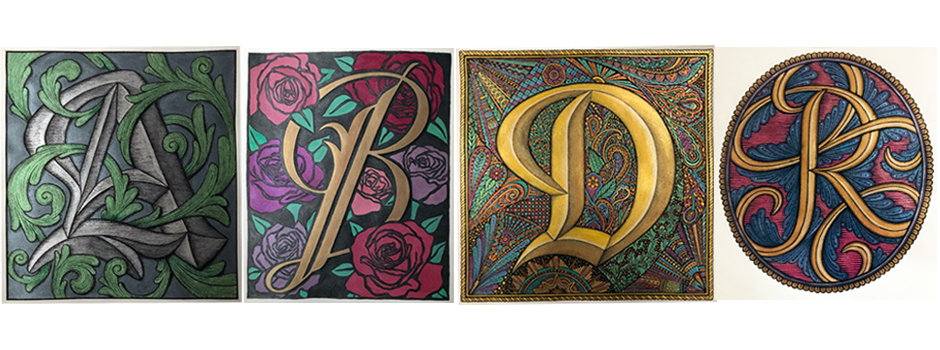
MF: Shifting gears — What do you do besides type; We would love to hear a little fun fact about you?
LW: Oh gosh. All kinds of things. Something that I love to do, and I forgot to pull it out real quick. If you don’t mind, I’ll grab it. And you guys can look at this cool little monogram that I’ve got on my chair, it’s my logo. When I bought this office chair, it was an option to have your logo, or your initials or whatever, stitched into the chair. And I was like, yeah, $40 to do that. Are you kidding me? Absolutely.
LW: Thank you. A huge thank you so much for you being interested in type, watching the series. And really just being there for us. I think that it’s something that we forget to do, I get emails from time to time where people say we really love your fonts. And you bring beauty into the world and you say thank you back. But sometimes I think it’s nice to use the platform to, to really say, thank you. Without our customers, we obviously wouldn’t be able to do what we do. So, That’s appreciated.